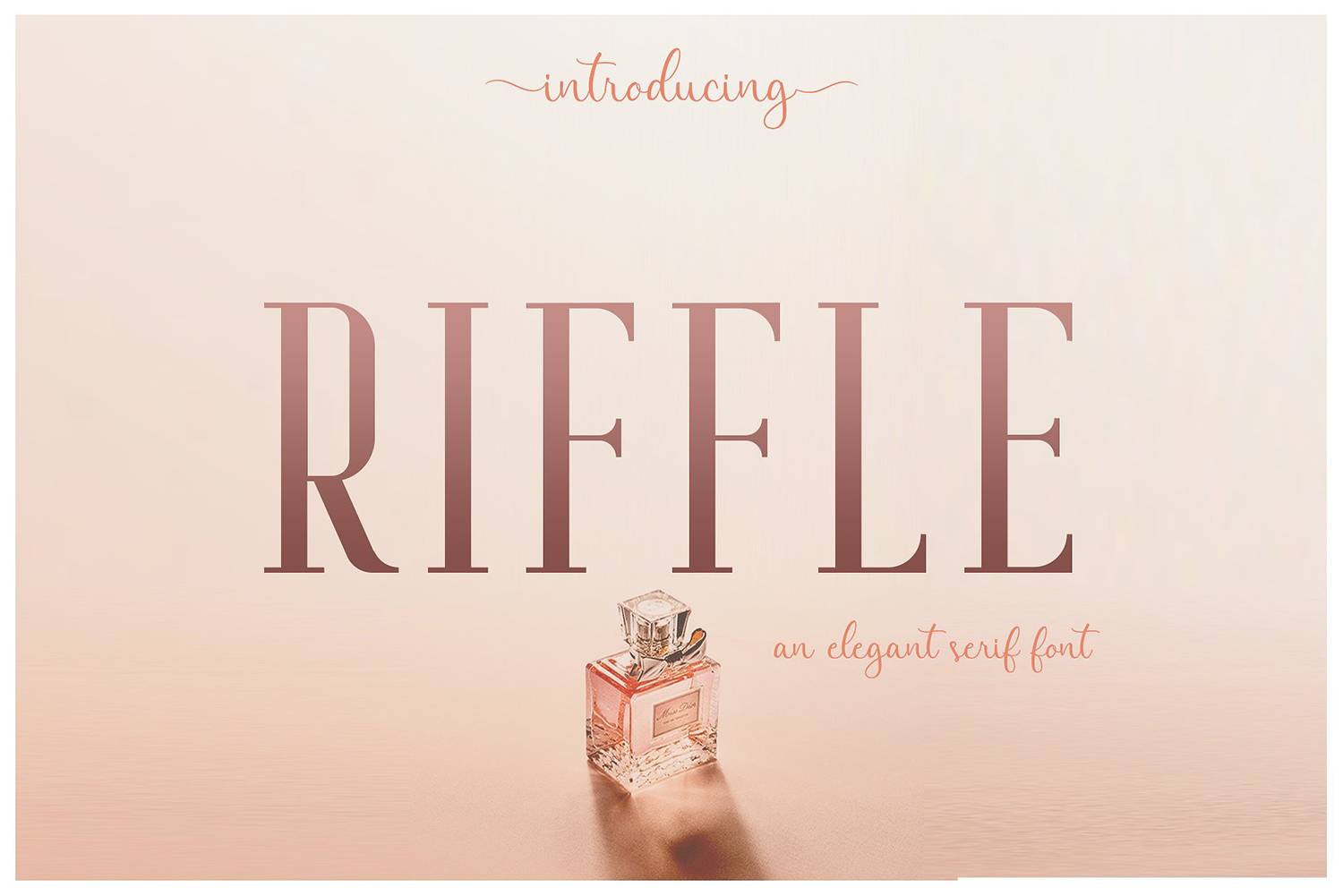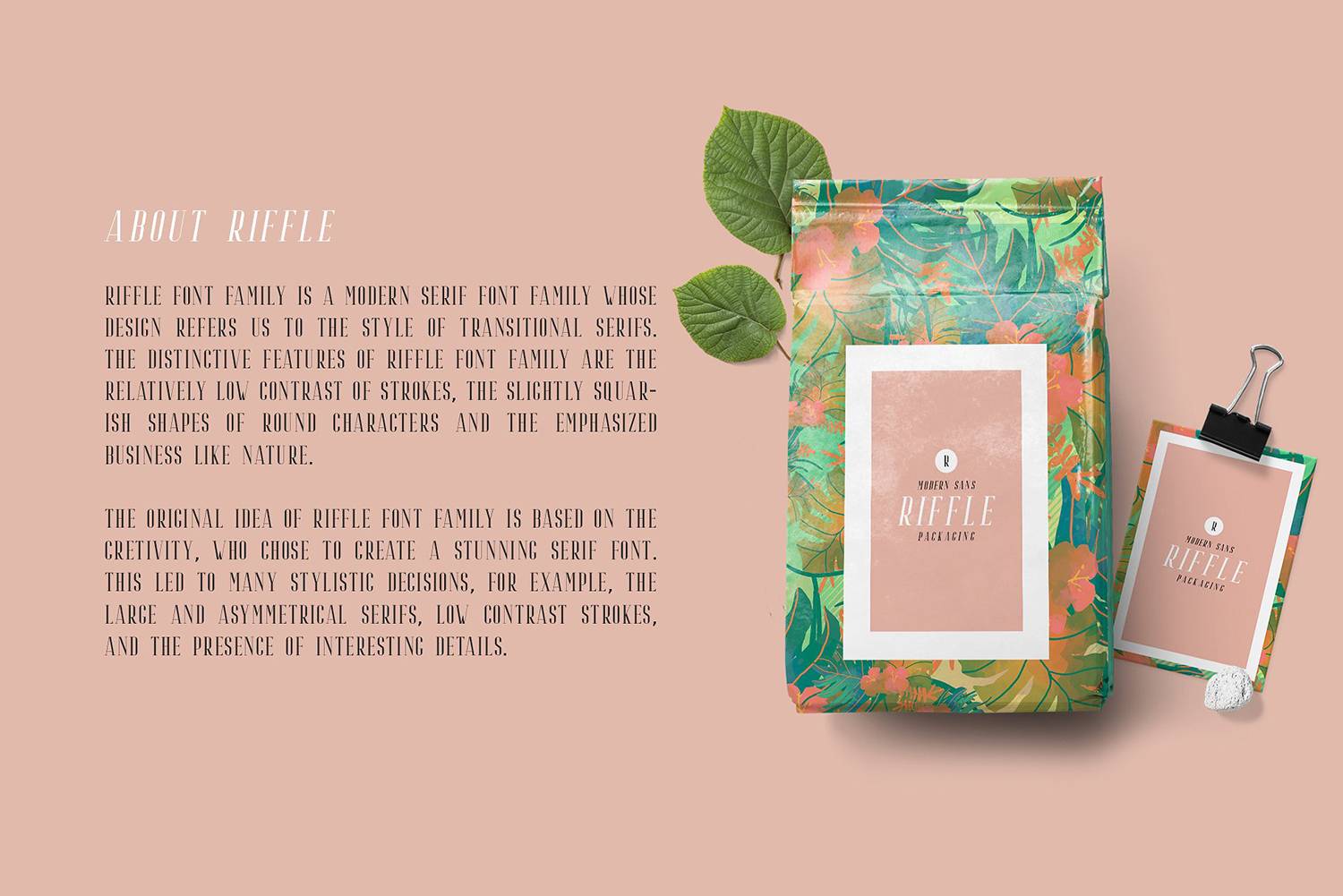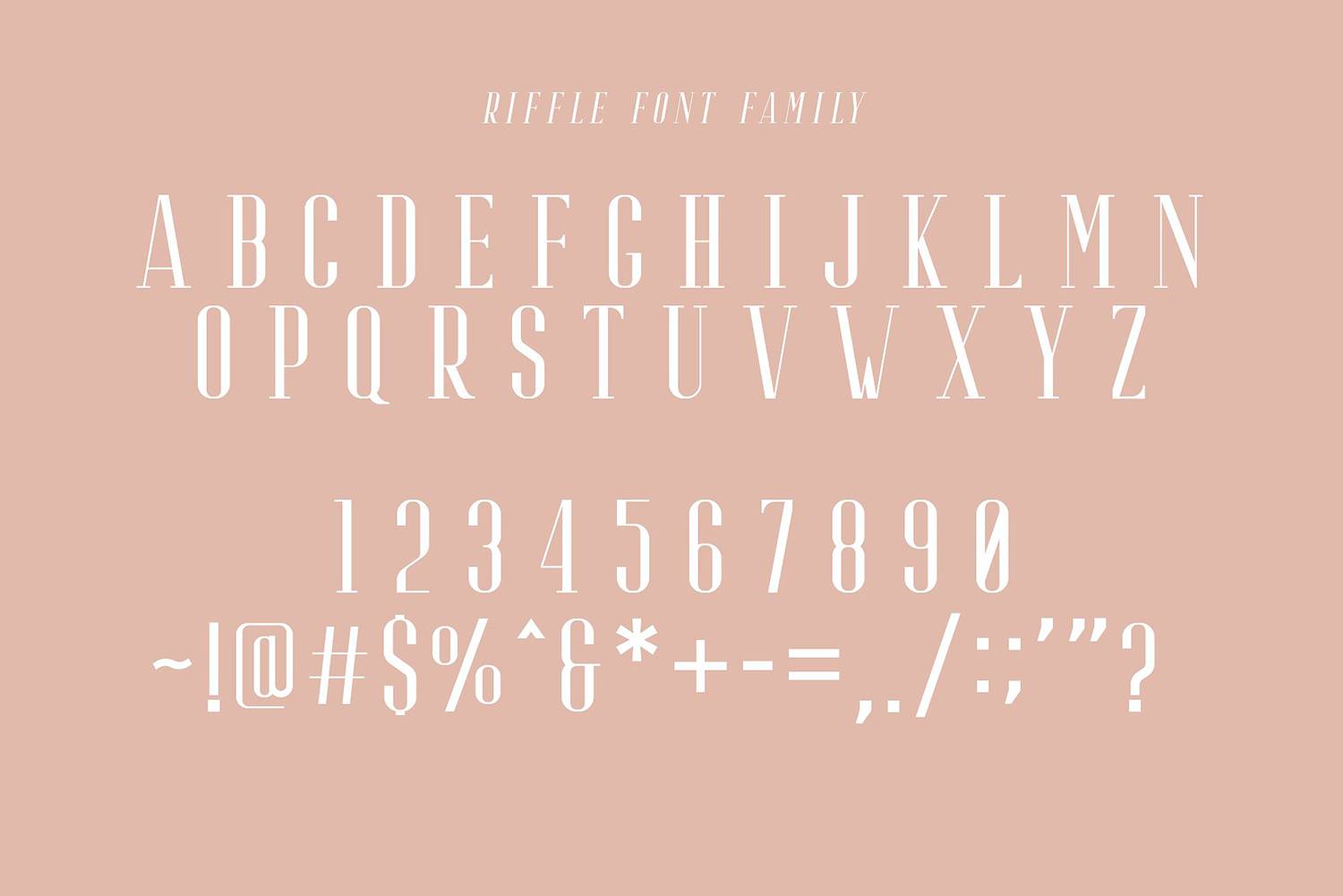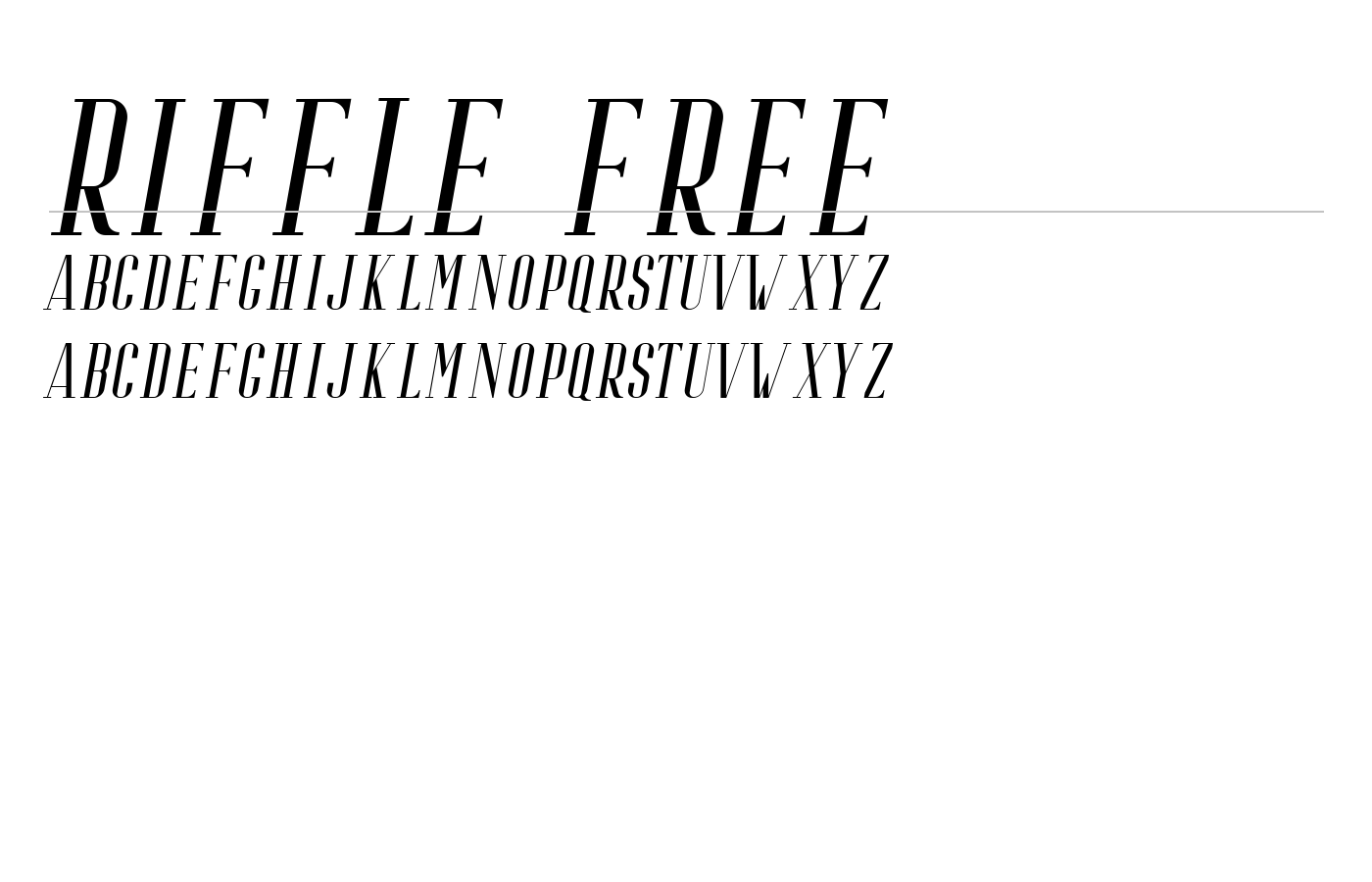
Riffle is a stylish serif font characterized by its tall, narrow letterforms and high contrast between thick and thin strokes, giving it an elegant and sophisticated look. Its sharp, unbracketed serifs and condensed structure make it perfect for luxury branding, editorial headlines, and fashion-forward designs where a refined, modern vintage feel is desired. The font’s distinct personality stands out in display uses, adding a sleek and upscale touch to any project.
Riffle Font
About Riffle Font